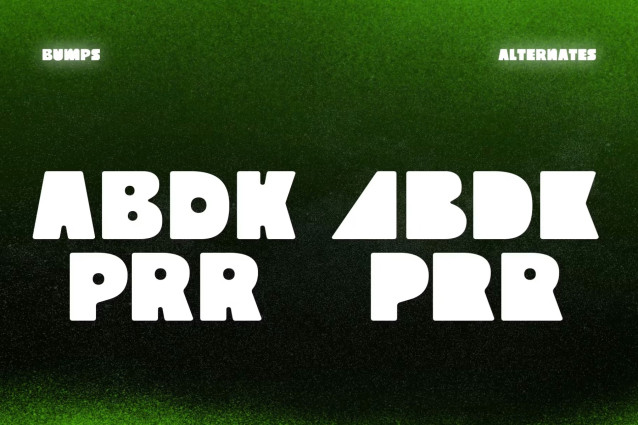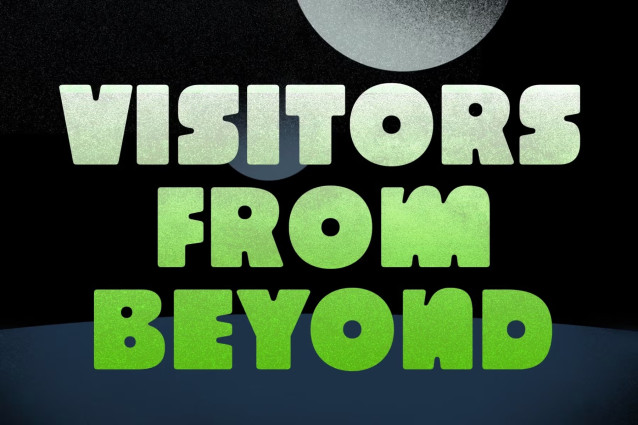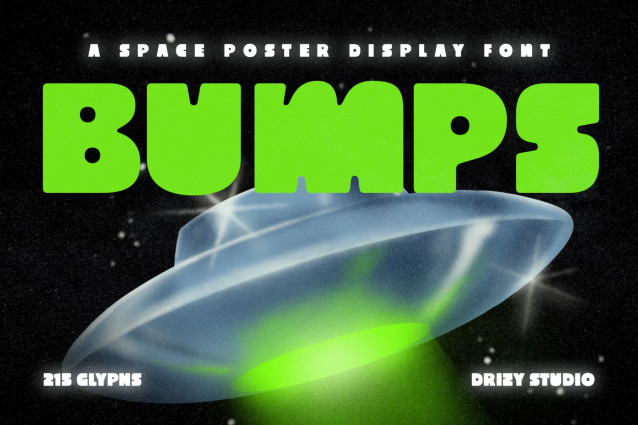
Bumps – Space Poster Display Font
Bumps is a bold and futuristic Display font designed to make a statement. Featuring a Bold, Fat Typeface with a distinctive Squared structure, it brings a strong geometric feel to posters, headlines, branding, titles, and space-inspired designs. Its All Caps style adds extra impact, making every word feel powerful, modern, and ready for the next dimension.